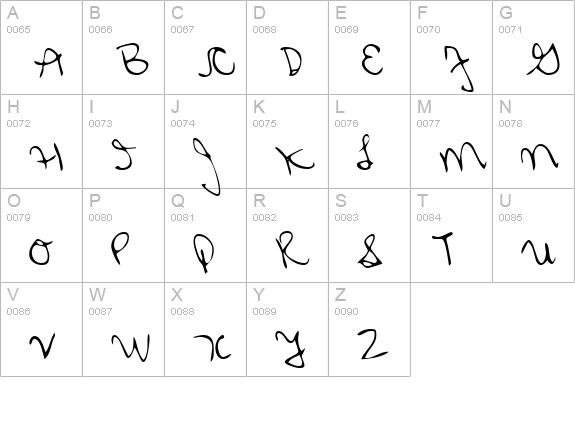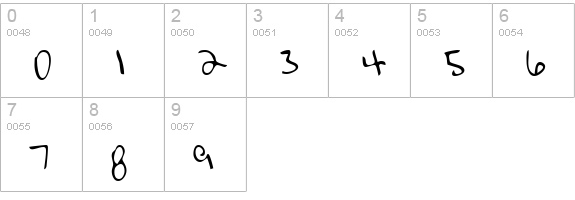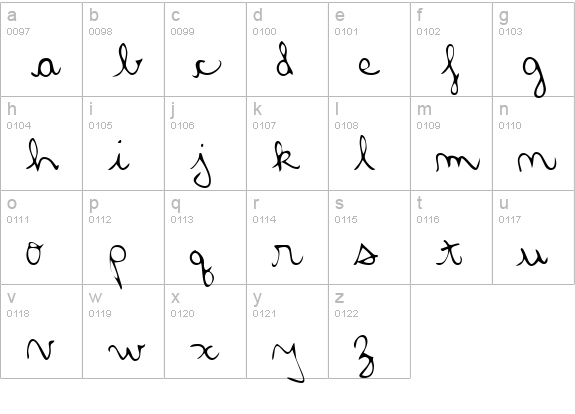
FlorasHand Regular is the standard, neutral variant in the FlorasHand typeface family \xE2\x80\x94 well suited to general body text, paragraphs, and standard typographic work.
FlorasHand Regular font is a charming and elegant typeface that exudes a sense of warmth and friendliness. With its delicate curves and flowing strokes, this font is perfect for adding a touch of sophistication to your design projects. Whether you're creating invitations, greeting cards, or branding materials, FlorasHand Regular will elevate your work with its graceful appearance. The best part about FlorasHand Regular font is that it is completely free to download at FontsMarket.com. This means you can easily access this beautiful font without any cost, making it a valuable addition to your font collection. Don't miss out on the opportunity to enhance your designs with the timeless beauty of FlorasHand Regular font - download it now and start creating stunning visuals today!